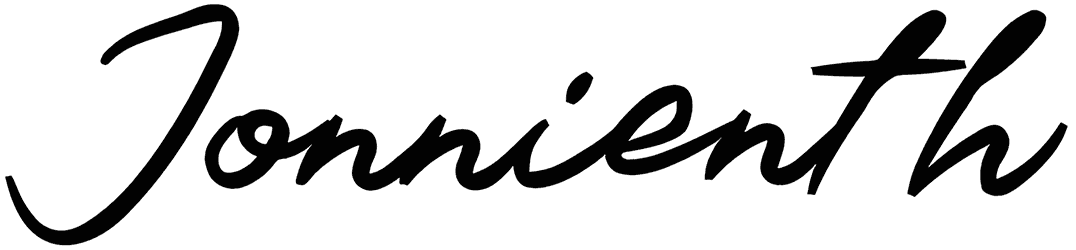
Jonnienth Font
With a lux but casual outward, your words would be more impressive and interesting. This calligraphy font has a captivating, smooth, and wavy letter face that can be an ace item for many professional designs. As a signature font, Jonnienth will provide a beautiful illustration for your intended designs, such as business cards, flyers, tattoos, and many others the same.